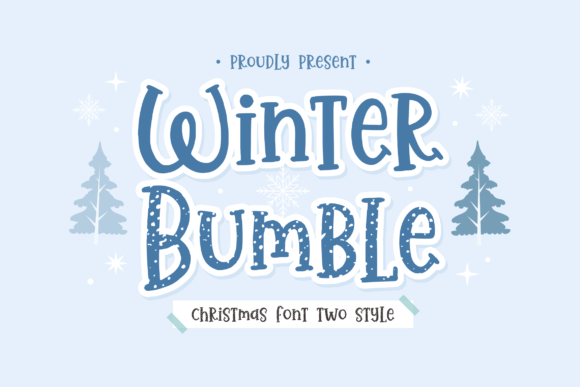
Journey into the realm of winter enchantment with Winter Bumble, an extraordinary display font family crafted by the visionary artists at allouse.studio. This captivating creation offers a unique fusion of whimsy and elegance, perfectly capturing the essence of the enchanting winter season.
Immerse yourself in a world of visual delight as you explore the two distinct styles of Winter Bumble. Unleash your creativity with the regular font, allowing its clean lines and playful characters to dance across your designs. Or embrace the magic of the season with the decorated style, where each letter is adorned with delicate snowflakes, evoking a sense of wonder and enchantment.
Whether you're designing eye-catching posters, enchanting invitations, heartwarming greeting cards, or any other creative project, Winter Bumble will infuse your work with an irresistible charm. Its versatile nature makes it the perfect choice for a wide range of projects, from whimsical holiday designs to elegant winter-themed branding.
With Winter Bumble, you'll embark on a creative journey like no other. Its captivating characters will bring your designs to life, adding a touch of magic to every word. Let your imagination soar as you create stunning visuals that resonate with the beauty of the winter season.